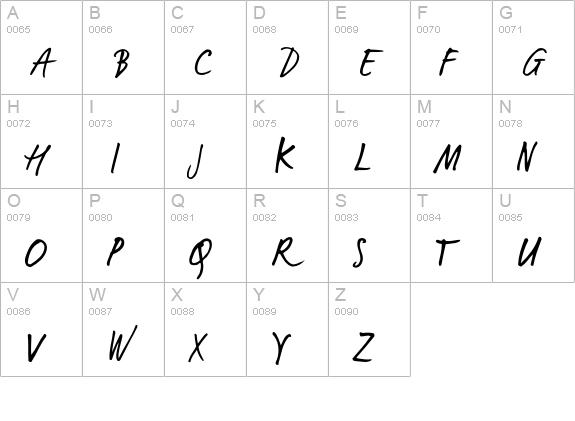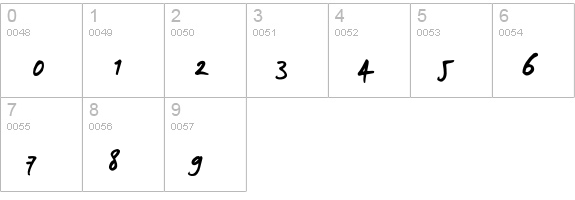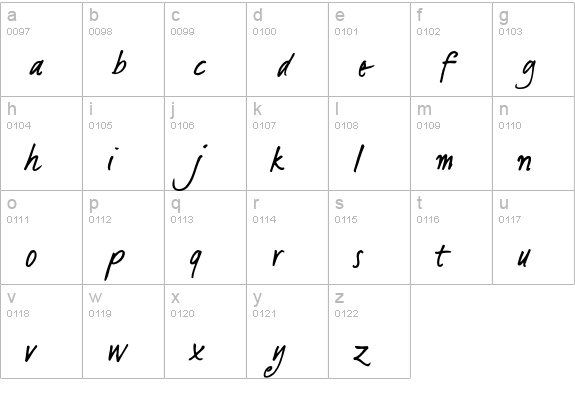
LucasHandFeet Font Details
Introducing LucasHandFeet font, a charming and whimsical typeface that brings a touch of playfulness to your designs. This unique font features hand-drawn letters with quirky elements that add a fun and lively feel to any project. Perfect for adding a personal touch to invitations, greeting cards, posters, and more, LucasHandFeet font is sure to make your text stand out. Best of all, LucasHandFeet font is available for free download at FontsMarket.com. That's right, you can easily access this delightful font without spending a dime. So why wait? Add a touch of whimsy to your designs with LucasHandFeet font today!